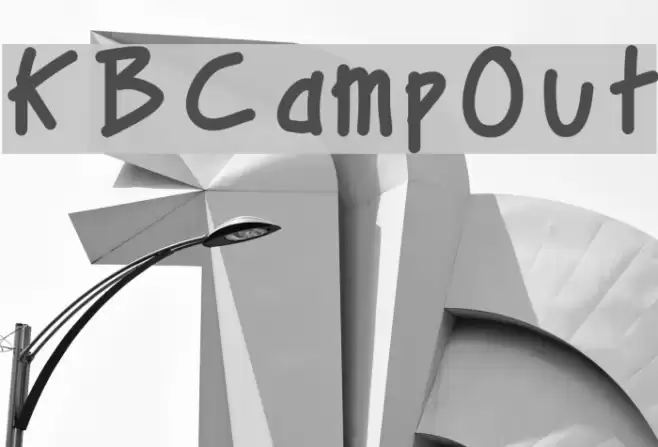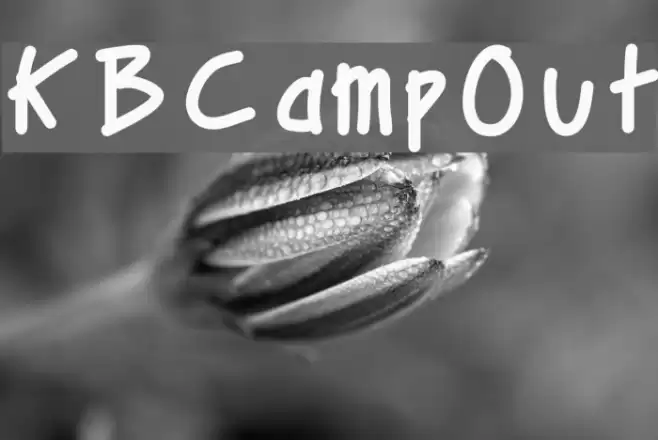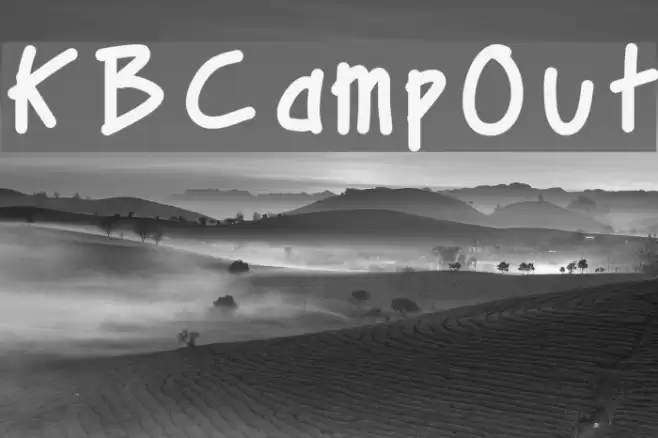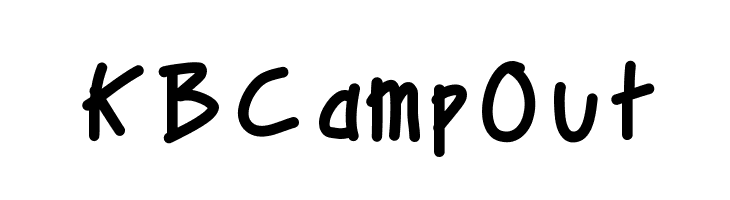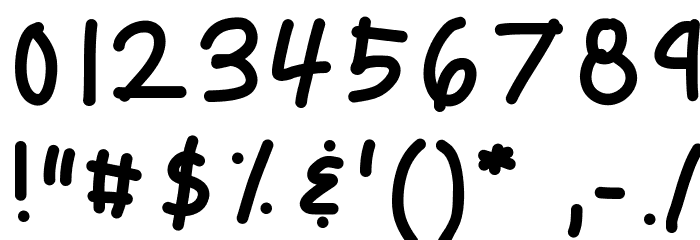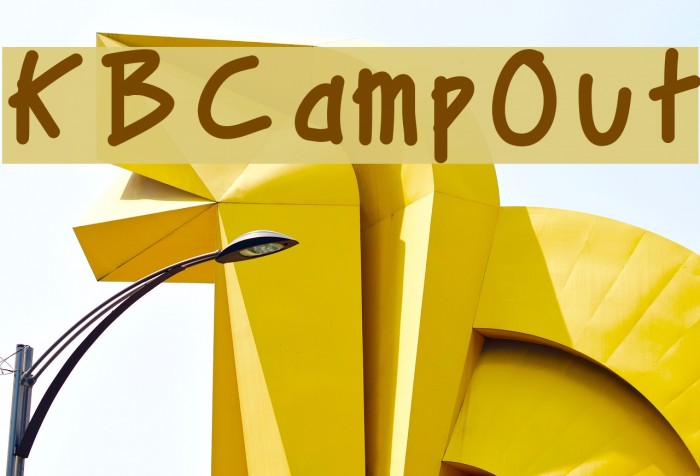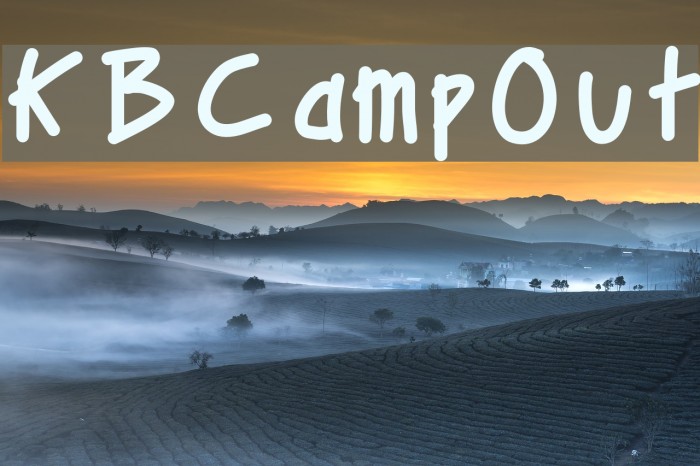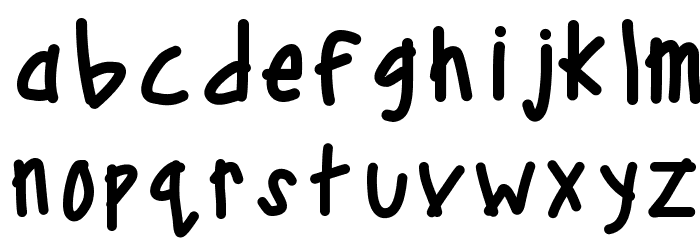
KBCampOut Font
KBCampOut Description
This playful and casual font features a handwritten style with a relaxed and informal appearance. The characters are slightly irregular, giving them a charming, personal touch. The strokes are consistent in thickness, providing a uniform look across all letters and numbers. The uppercase and lowercase letters are well-balanced, with a slight slant that adds to the font's whimsical nature. The numerals are clear and easy to read, while the special characters maintain the same playful aesthetic. This font is perfect for projects that require a friendly and approachable feel.
A playful, handwritten font with a casual and informal style from Uncategorized fonts.
- Proposed Projects: Ideal for children's books, greeting cards, casual invitations, and playful branding.
- Overall Style: Casual
- Use Case: Headlines, Informal text, Branding